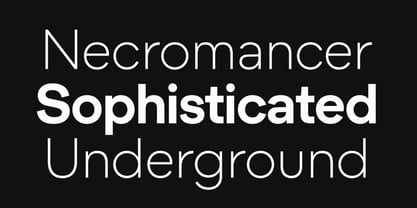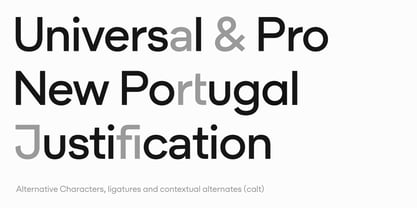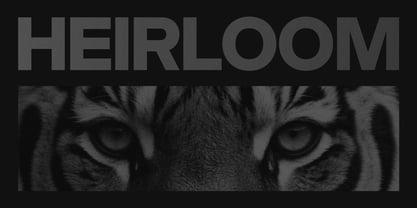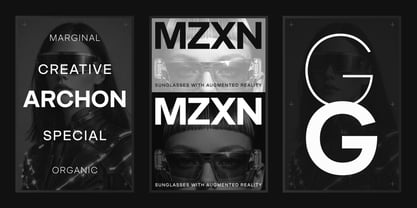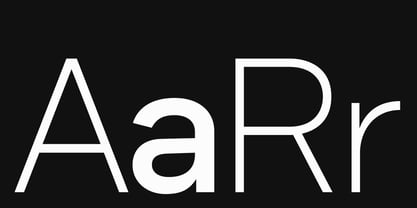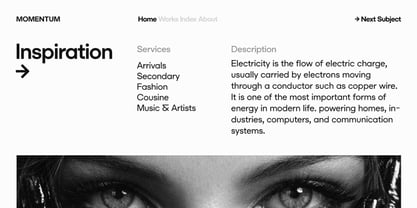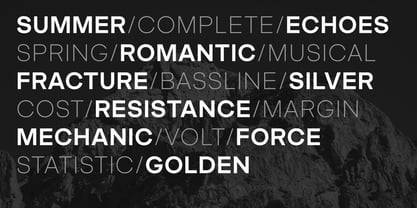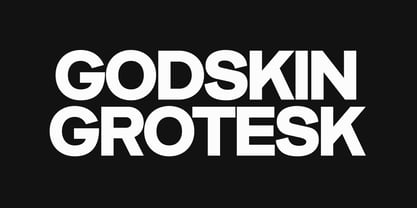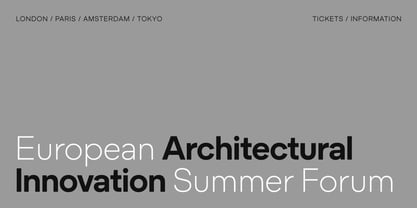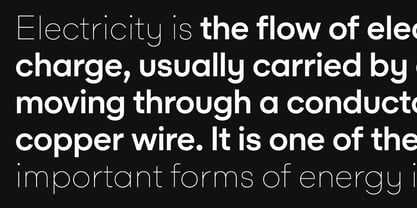
Godskin Grotesk
by Horizon Type
Godskin is a modern display typeface designed to command attention. Built on a geometric foundation, it combines sharp cuts, expressive terminals, and distinctive details to create a bold visual rhythm with a refined sense of controlled aggression. The result is a typeface that feels both precise and unmistakably characterful.
Rather than relying on conventional geometric forms, Godskin introduces subtle irregularities that give each letter a memorable silhouette. Every glyph is carefully balanced for clarity at large sizes while retaining enough personality to define a composition on its own.
Designed for logos, headlines, posters, and branding systems, Godskin excels wherever a strong visual presence is essential. From contemporary visual identities and editorial design to advertising and packaging, it helps create work that feels confident, distinctive, and instantly recognizable.
Designers: Ufuk Aracıoğlu
Foundry: Horizon Type